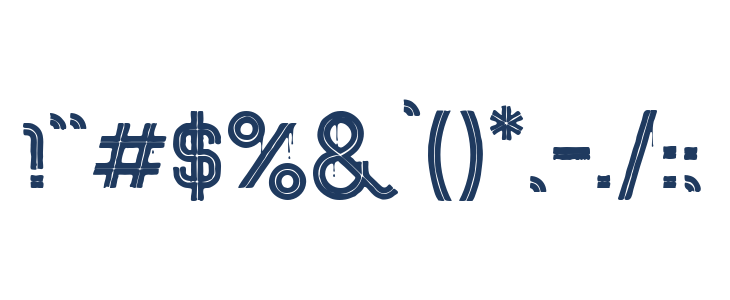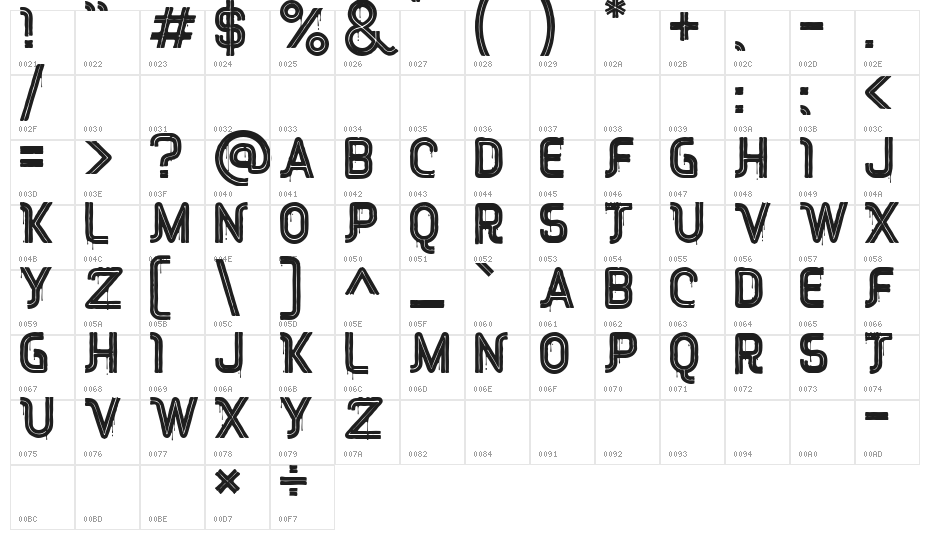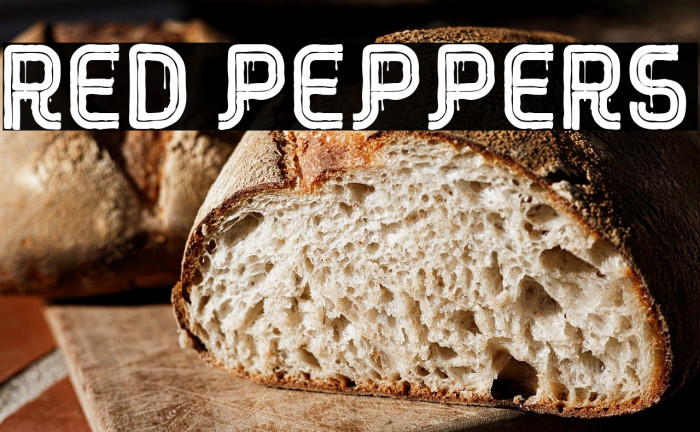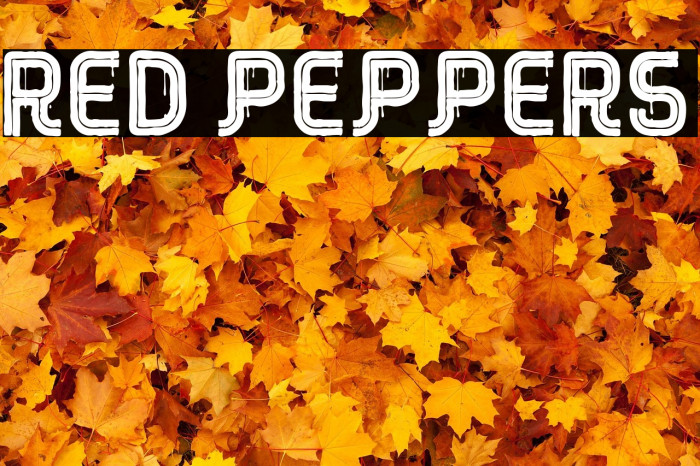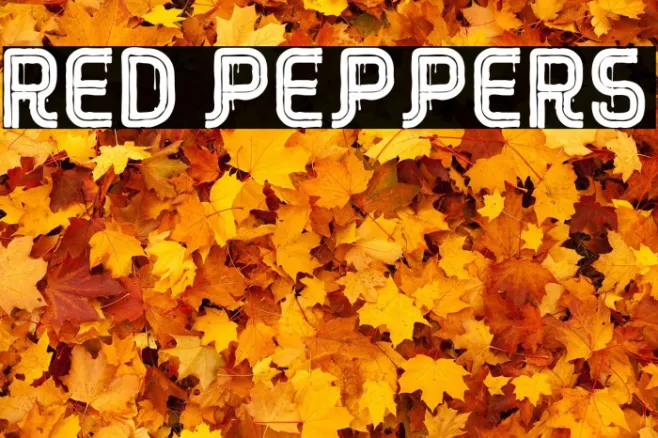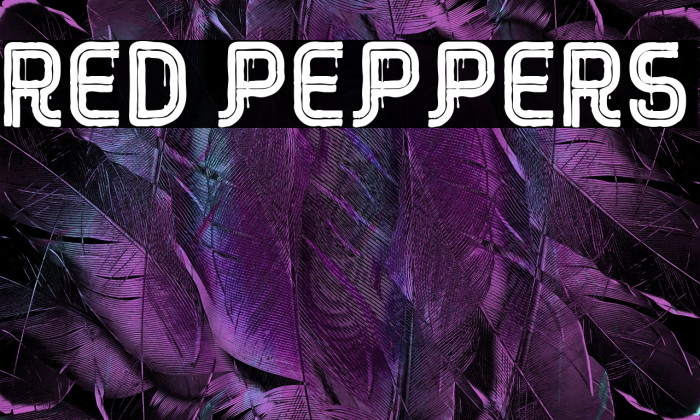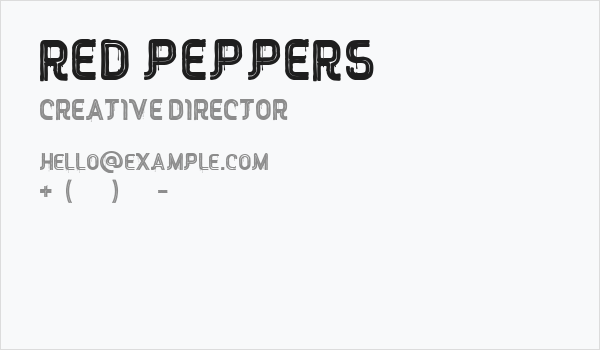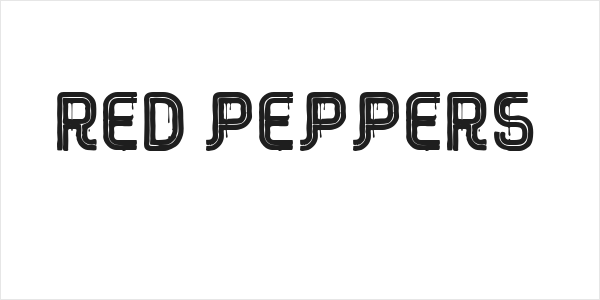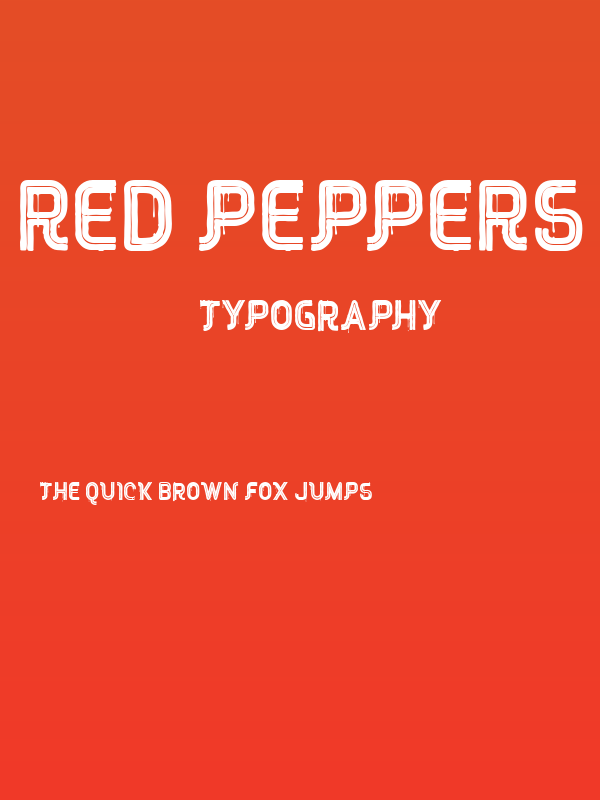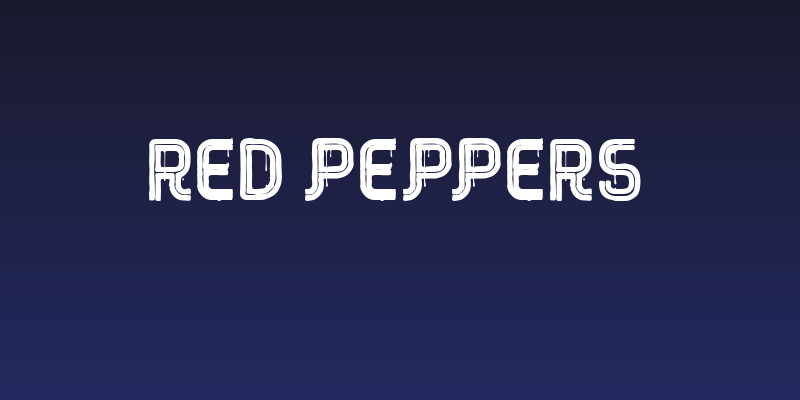
RED Peppers Font
RED Peppers Description
This font features a bold, decorative style with a distressed, grunge-like appearance. The characters are uppercase and have a unique, dripping effect that gives them a dynamic, edgy look. The strokes are thick and consistent, with a slight variation that adds to the distressed aesthetic. The font maintains a uniform width across all characters, ensuring readability despite its decorative nature. The special characters follow the same design principles, integrating seamlessly with the alphabet. This font is ideal for projects that require a bold statement or an urban, gritty feel.
Proposed ProjectsIdeal for music album covers, streetwear branding, graffiti art, and event posters.